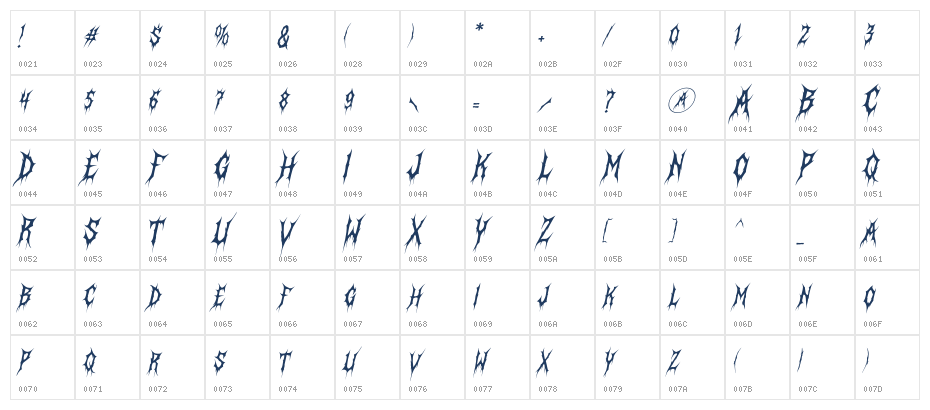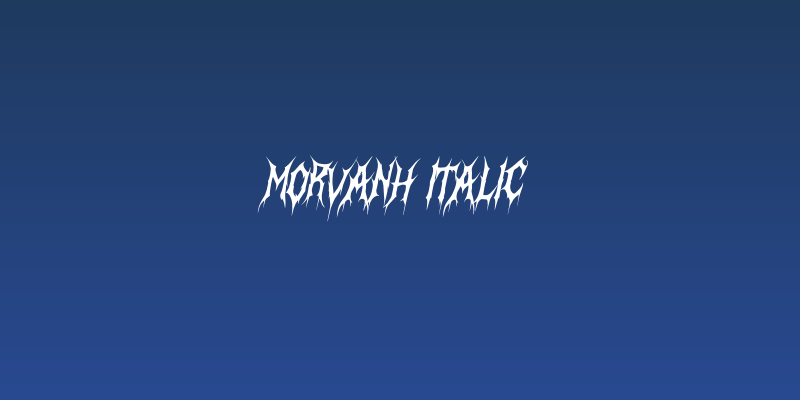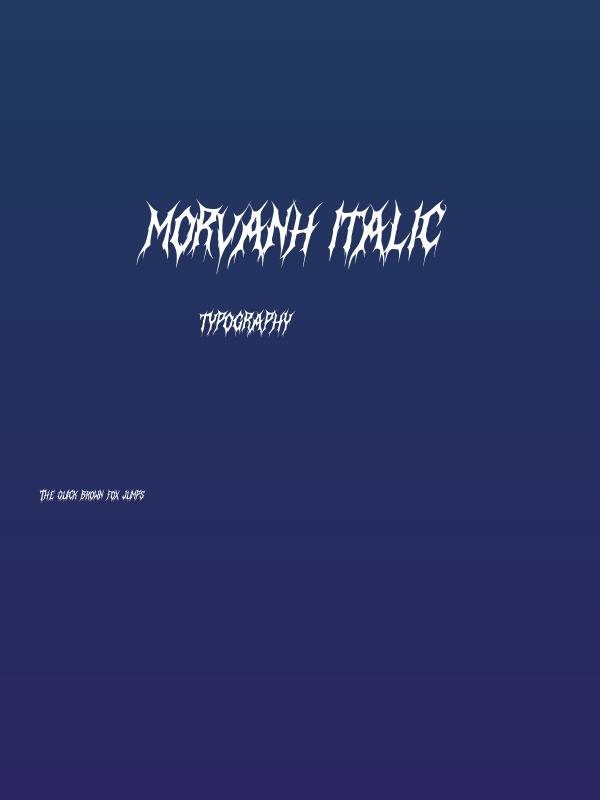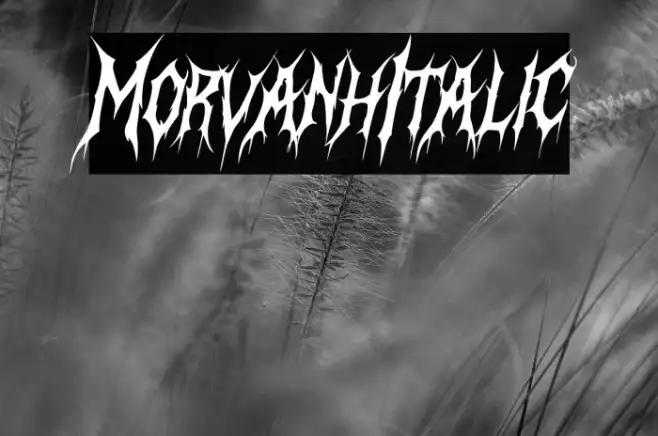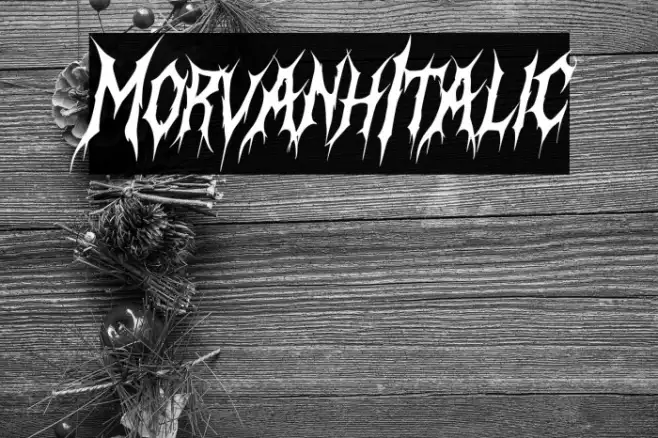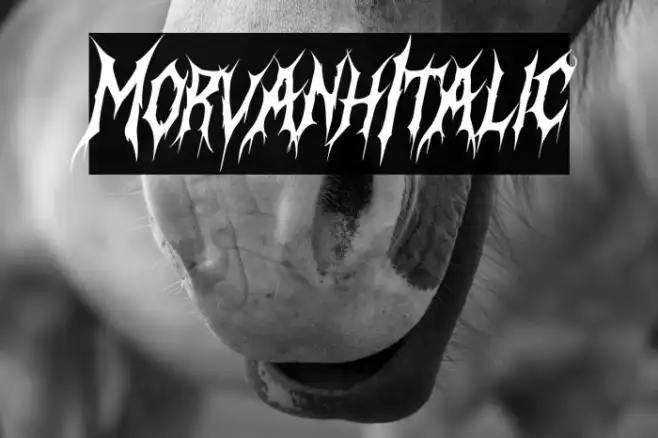
Morvanh Italic Font
Morvanh Italic Description
A highly stylized, jagged, and spiky display font with an aggressive, edgy appearance.
| Overall Style | Edgy, Gothic, Horror-inspired |